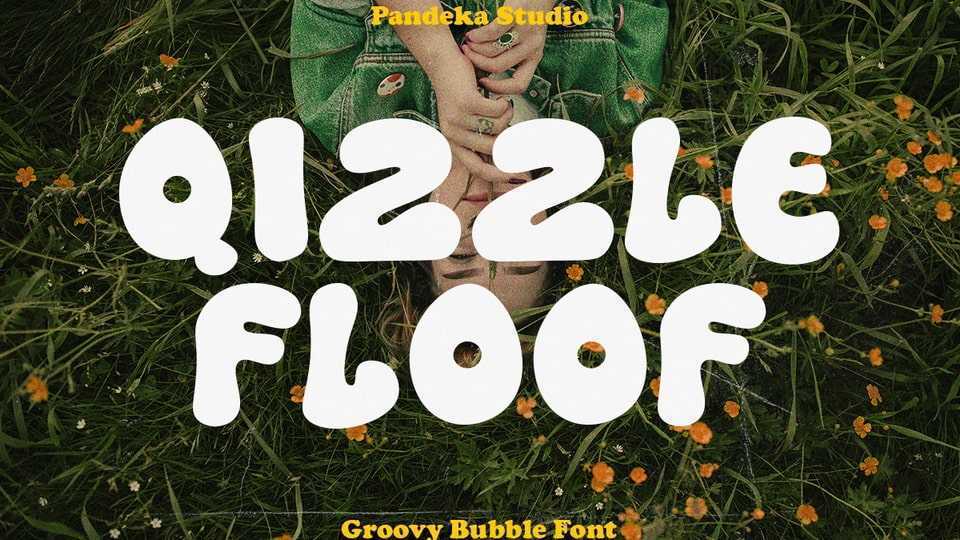
Qizzle Floof Font › Fontesk – Download Grátis
Download Qizzle Floof font, a playful and bubbly typeface that brings a groovy and organic feel and adds personality to your designs.